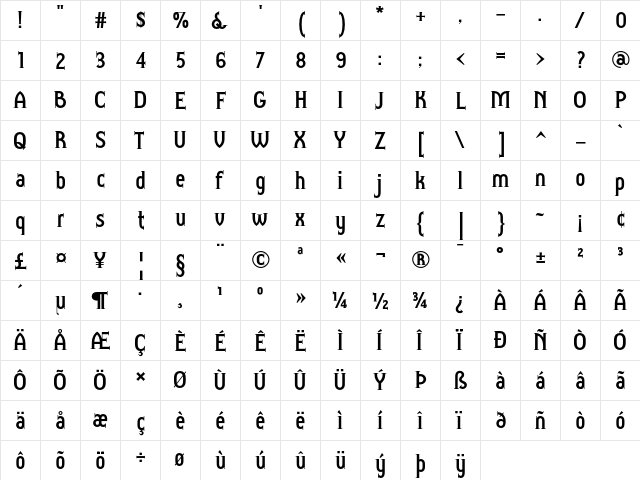
Cambalache Bold Regular
| Foundry | John Vargas Beltran |
| Designer | John Vargas Beltran |
Design Context for Cambalache Bold Typeface
Cambalache Bold is a composed and adaptable typeface that performs quietly and consistently across a wide range of design contexts. The heavy weight commands attention and anchors typographic hierarchies.